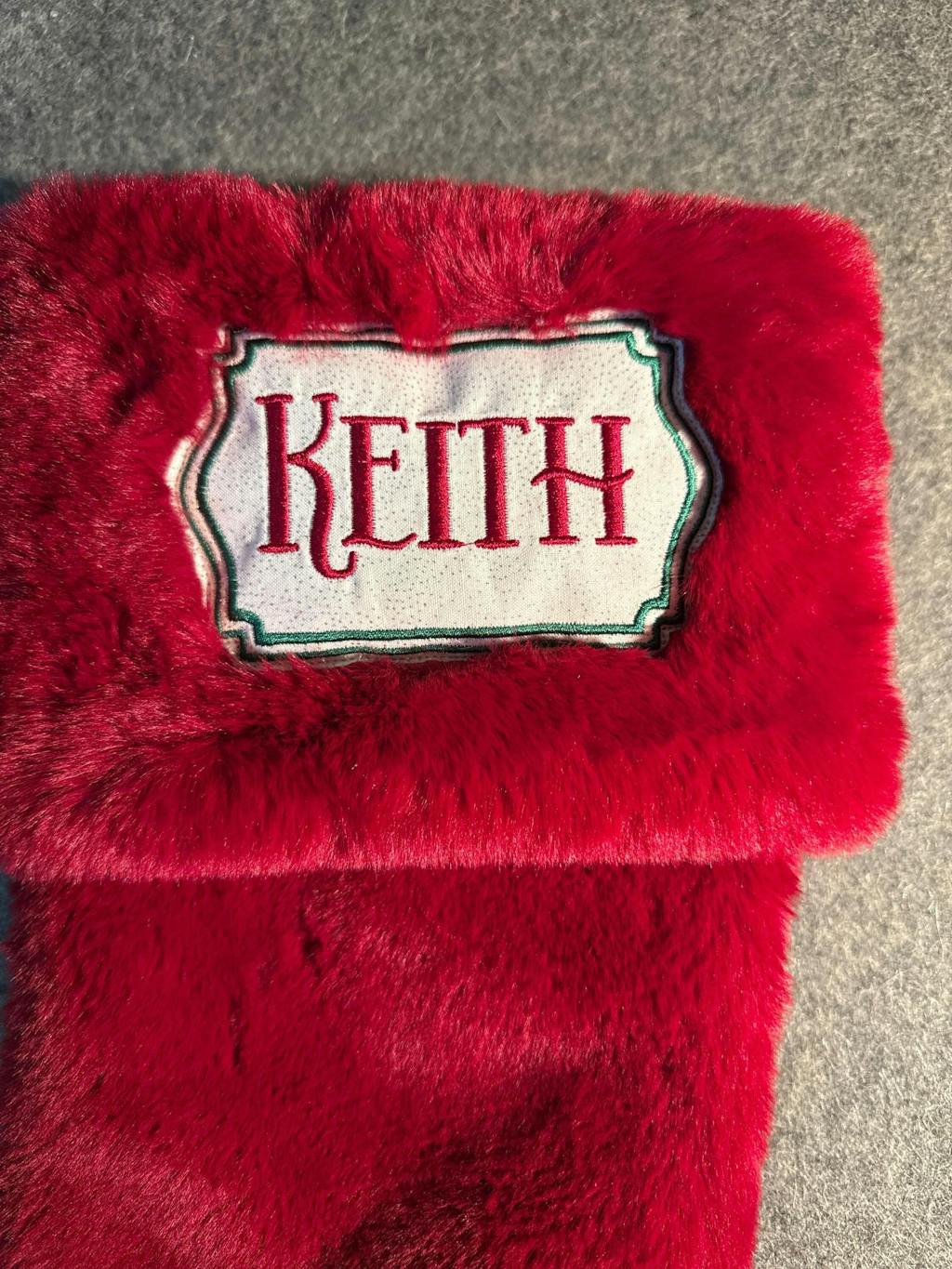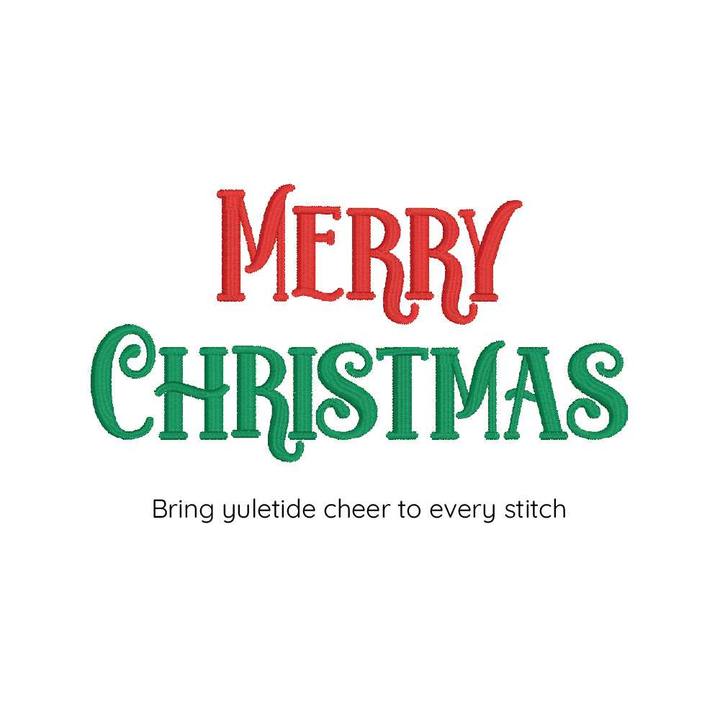
Merry Christmas Digital Embroidery Font
Unleash your festive creativity with Merry Christmas, the ultimate digital embroidery font that brings a joyful touch to all your seasonal projects. Transform ordinary textiles into extraordinary holiday keepsakes with this exquisite font, designed to spread cheer and warmth in every stitch.
Merry Christmas features a whimsical, yet elegant, lettering that embodies the spirit of the season, perfect for adorning your cherished holiday creations. With this delightful font at your fingertips, you'll effortlessly craft stockings, table runners, personalized gifts, and festive home décor that will make hearts glow.
Add a touch of magic to your embroidery collection and let Merry Christmas inspire you to create timeless pieces that will be treasured for years to come. Celebrate the wonder of the holiday season with this enchanting font, and let your imagination soar as you stitch your way into a winter wonderland of delight.
Stitch Type: Satin Stitch & Split Satin Stitch